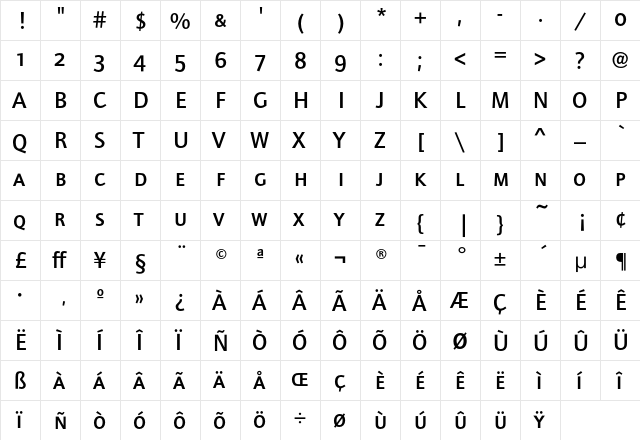
FoundryJournalSC-Medium Regular
Design Context for FoundryJournalSC-Medium Typeface
FoundryJournalSC-Medium is a composed and adaptable typeface that performs quietly and consistently across a wide range of design contexts.